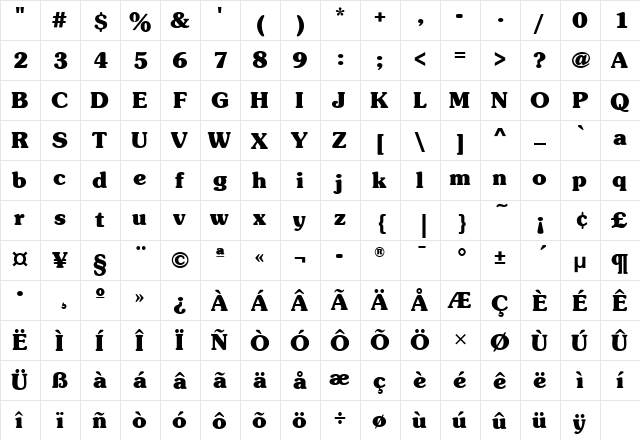
SouvenirMdITC Bold
Design Context for SouvenirMdITC Typeface
SouvenirMdITC takes a measured approach to typography — its balanced proportions and neutral character make it a reliable workhorse for both digital and print work. Its bold stroke weight gives it real presence on the page.
Pro Tip: Use SouvenirMdITC in both headline and body roles to test its range before committing to a single application.